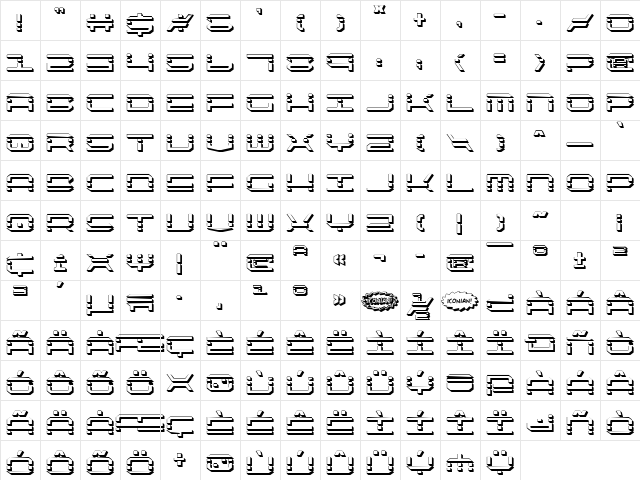
QuickQuick is built around its visual character rather than neutral utility - its distinctive forms are designed to make an impression at display sizes.
Font Pairing: Pair with a clean neutral sans-serif for body copy to let QuickQuick's character lead without overwhelming the composition.
Pro Tip: Use QuickQuick exclusively at display sizes - it was designed to be seen, not read at length. Let a neutral companion handle body copy.